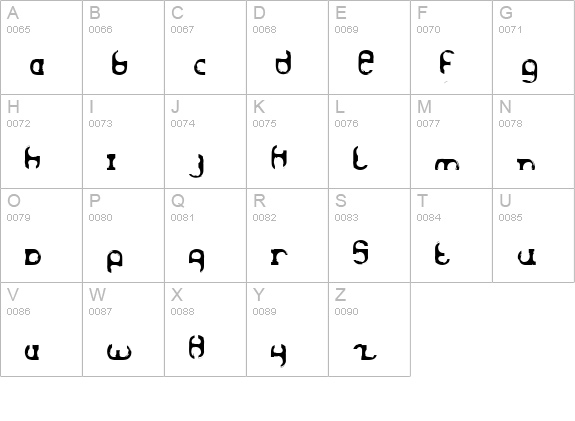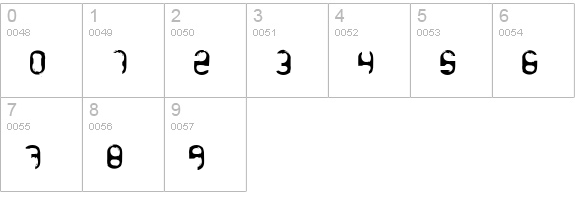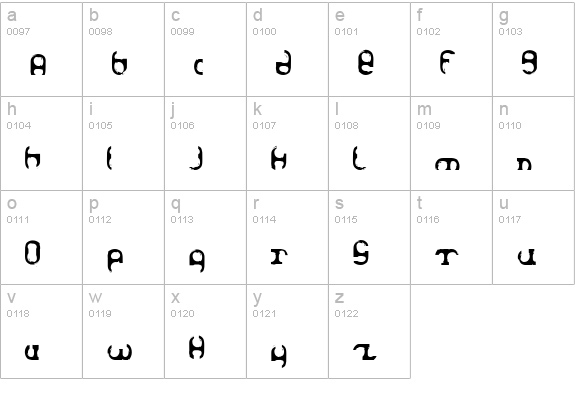
Introducing Haze font, a stylish and modern typeface that will captivate your audience with its unique design. With its sleek and sophisticated curves, this font exudes a sense of elegance and professionalism, making it perfect for a wide range of projects, from logos and branding to advertisements and invitations. Haze font is not only aesthetically pleasing but also highly versatile. Its clean lines and balanced proportions make it easy to read at any size, ensuring maximum legibility across various mediums. Whether you are designing for print or digital platforms, Haze font will make your text stand out and leave a lasting impression. What sets Haze font apart is its versatility and adaptability. It seamlessly blends into any design concept, whether it's a minimalist approach or a bold and vibrant style. Its timeless appeal and contemporary charm make it suitable for a wide range of applications, from fashion and beauty to technology and finance. And the best part? Haze font is completely free! That's right, you can download this beautiful font at FontsMarket.com without spending a dime. We believe in providing high-quality resources that are accessible to everyone, and Haze font is no exception. So go ahead, unleash your creativity and elevate your designs with this stunning typeface. Don't miss out on this opportunity to enhance your projects with Haze font. Download it now at FontsMarket.com and let your creativity soar. Whether you're a professional designer or a hobbyist, Haze font will surely become an invaluable addition to your font collection.